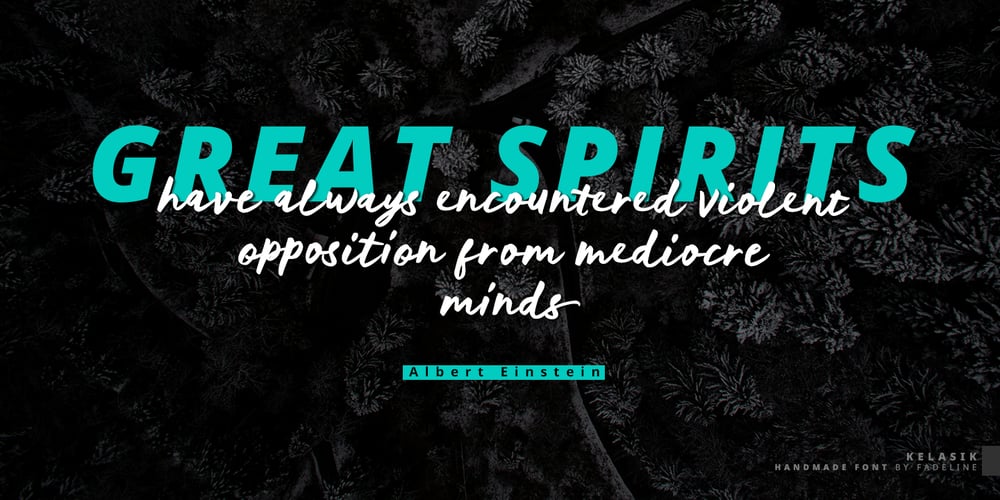
Kelasik Handmade Font Family was designed by Juni Fadil Putra and published by FadeLine Studio. Kelasik Handmade contains 1 styles and family package options. Kelasik a new handmade script with a style natural, sweet and simple. Made with great care to provide the natural and modern elements. This font will look beautiful if used single even with other pairing fonts. The great thing about this font is you can find some style when you use it, examples such as natural handwriting style, unique, simple, elegant, and bold. With a style like this, this font will be suitable in use for logo’s, branding projects, homeware designs, product packaging, mugs, quotes, posters, shopping bags, logo’s, t-shirts, book covers, name card, invitation cards, greeting cards, and all your other lovely projects.